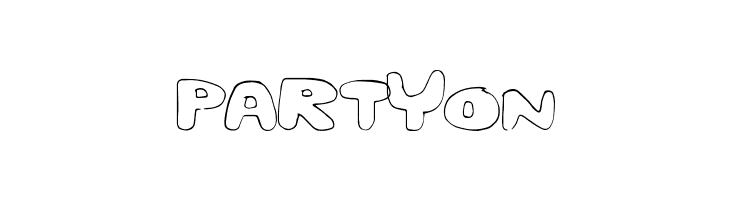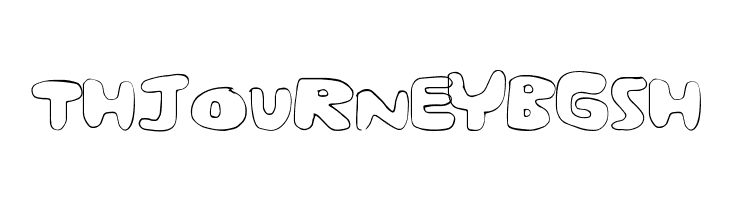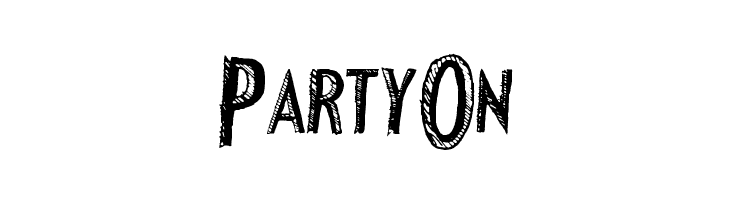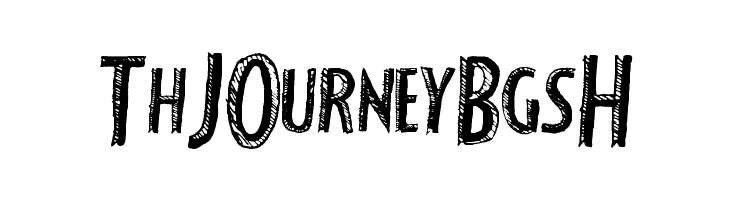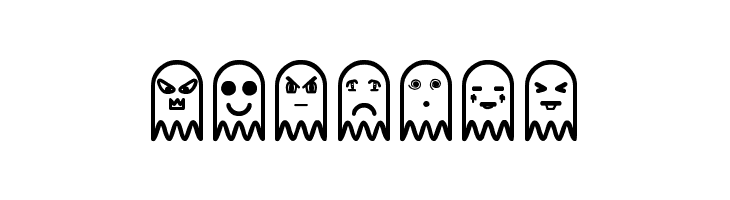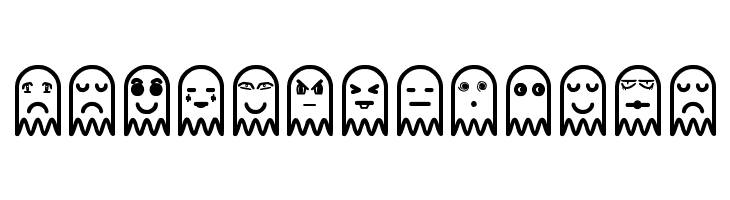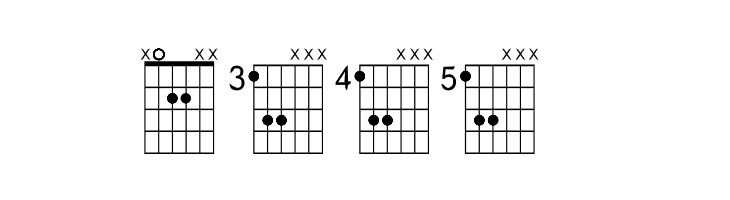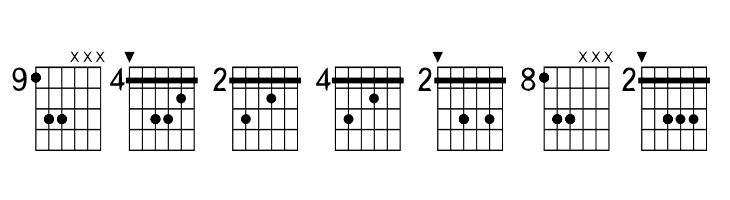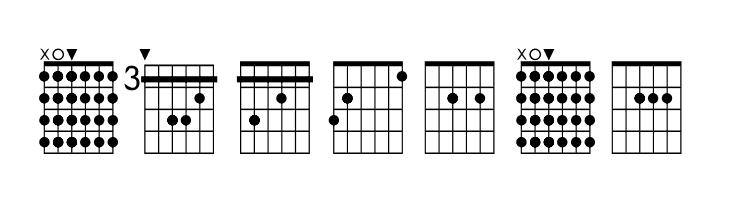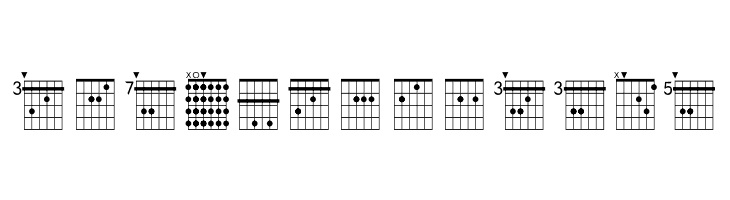
• Famous Oldies Plain
A playful, hand-drawn font with a bold, whimsical style.
• Famous Oldies Shad
A bold, playful font with a three-dimensional shadow effect and a hand-drawn style.
• FanCom
A playful, bubble-like font with rounded, bold characters.
• FancyShadow
A bold, hand-drawn font with a playful shadow effect.
• Fantasmytas St
( Fonts by Southype )
A playful set of ghost-like characters with various facial expressions.
• Far Spot
A modern, dotted font with a digital, pixelated appearance.
• FarHat BC Regular
( Marcos Augusto Farhat - www.farhatguitar.com )
Not a valid font; contains musical and abstract symbols.
• FarHat Chords 1 Regular
( Marcos Augusto Farhat - www.farhatguitar.com )
A pictogram font for guitar chord diagrams.
• FarHat Chords 2 Regular 3
( Marcos Augusto Farhat - www.farhatguitar.com )
Font consists of guitar chord diagram glyphs.
• FarHat Fifth Regular 2
( Marcos Augusto Farhat - www.farhatguitar.com )
A set of musical and chord notation symbols for music instruction.